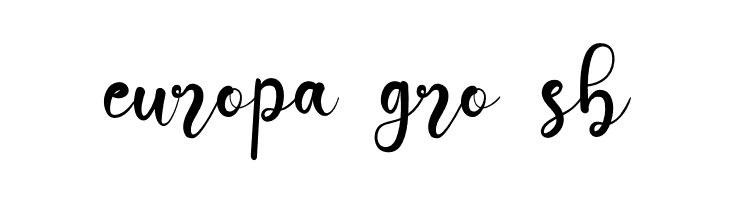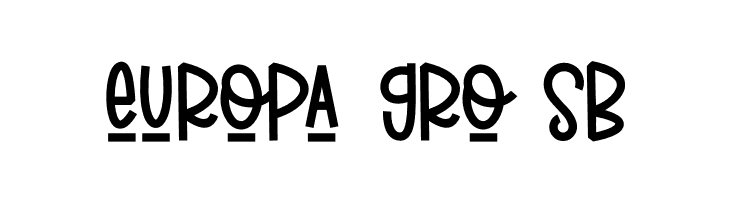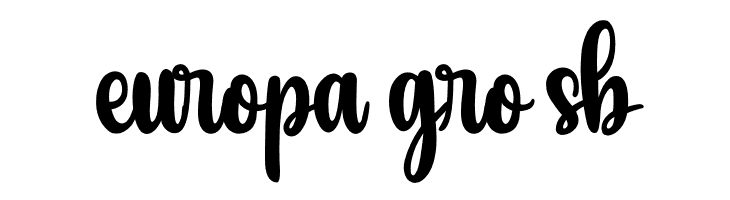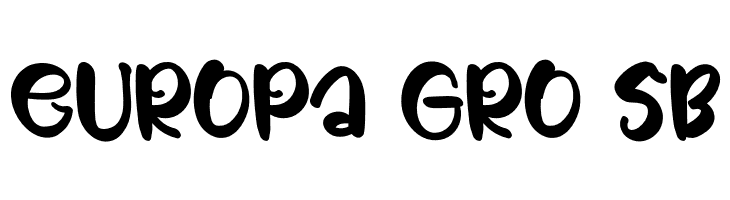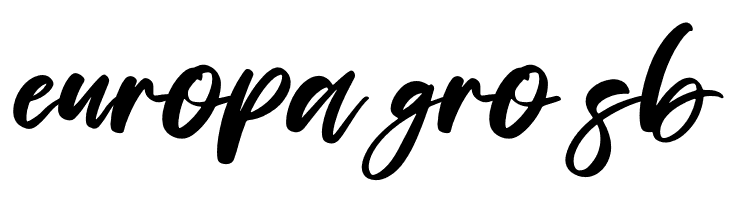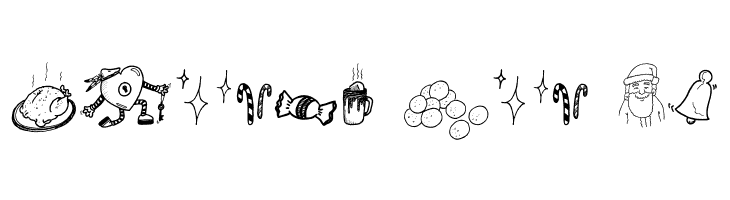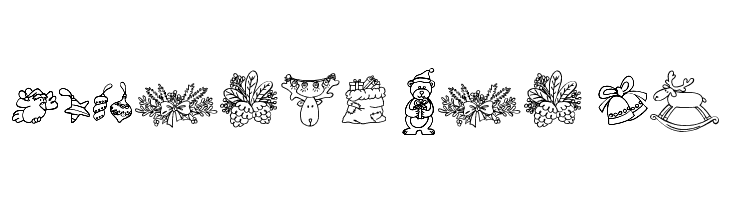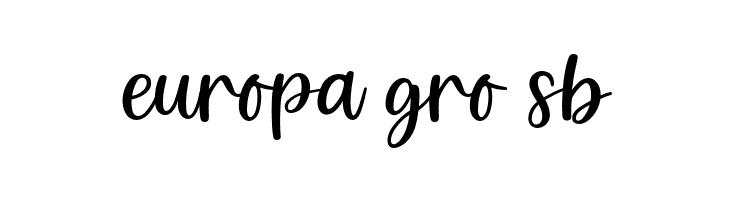
A festive, decorative font with holiday-themed embellishments.
A festive and decorative font with playful embellishments, perfect for holiday themes.
A playful handwritten font with rounded, consistent strokes.
A festive and elegant cursive font with decorative swirls, perfect for holiday themes.
A festive, cursive font with elegant loops and swirls, perfect for holiday themes.
A festive, decorative font with ornamented characters perfect for holiday themes.
A decorative monogram font with uppercase letters encased in festive wreath designs.
A playful, handwritten font with smooth, rounded edges and consistent stroke width.
A festive, decorative font with holiday light details on each character.
A playful, festive font with a hand-drawn, dotted texture ideal for holiday themes.
A festive, ornament-adorned font perfect for holiday projects.
A bold, playful handwritten font with thick, rounded strokes and a lively appearance.
A bold, flowing script font with a lively, handwritten style.
A bold, brush script font with a hand-painted, dynamic style.
A playful, handwritten script font with bold, fluid strokes.
A bold, playful font with rounded, festive characters ideal for holiday themes.
A playful, bold font with rounded, thick strokes and a whimsical style.
A festive, bold font with playful holiday-themed patterns.
A playful and festive font with bold, curvaceous letters perfect for holiday themes.
A festive, decorative font with stars and stripes, perfect for holiday themes.
A bold, festive font with a decorative icy outline, perfect for holiday themes.
A festive, playful font with gift box icons, perfect for holiday themes.
A festive, playful font with holiday-themed decorations and a handwritten style.
A festive script font with snowflake accents, perfect for holiday-themed designs.
A festive, bold font with Santa hats on each letter, perfect for holiday themes.
A festive font with each letter topped by a Santa hat, perfect for holiday projects.
A playful, hand-drawn font with tall, narrow letters and a whimsical style.
A playful, handwritten font with rounded edges and a casual style.
A festive, star-adorned script font perfect for holiday designs.
A festive decorative font featuring detailed holiday-themed symbols and icons.
An ornate, festive font with decorative flourishes and holiday-themed embellishments.
A festive, sparkling script font ideal for holiday designs.
A playful, handwritten font with tall, narrow letters and consistent stroke width.
A bold, fluid script font with a lively, handwritten style.
A festive handwritten script font with snowflake accents, perfect for holiday designs.